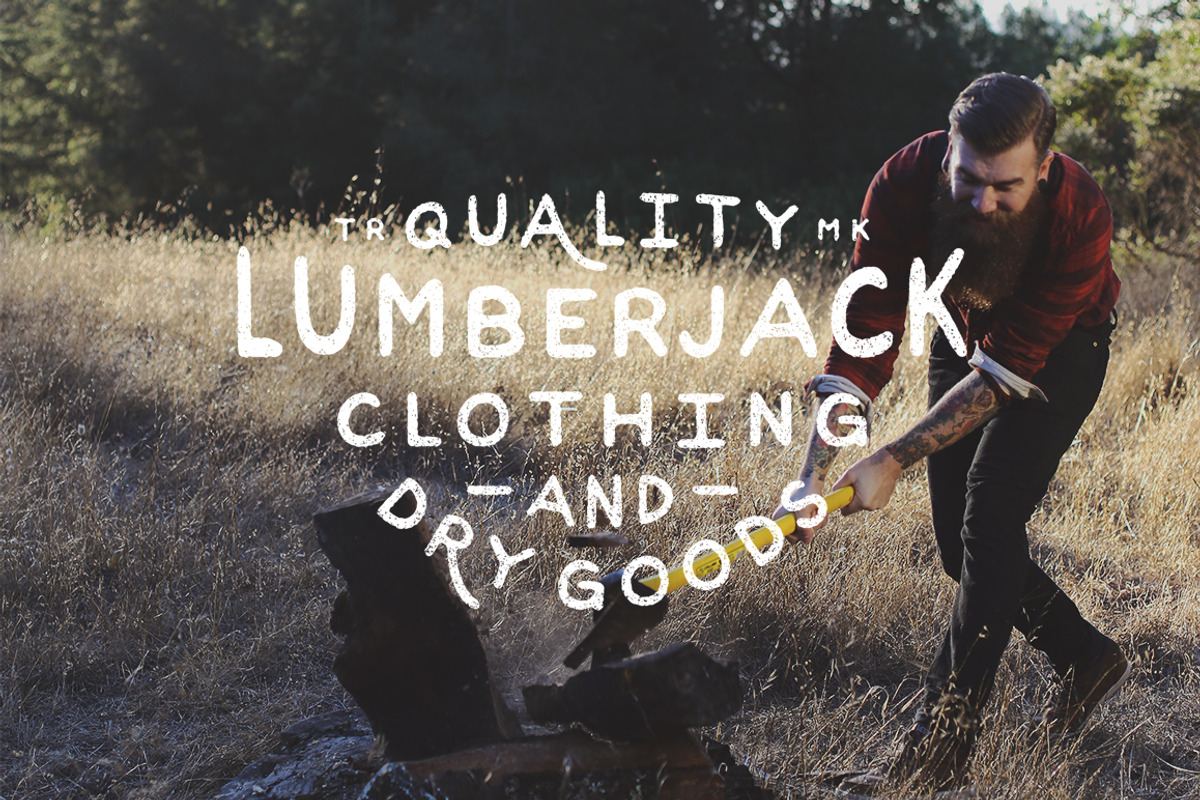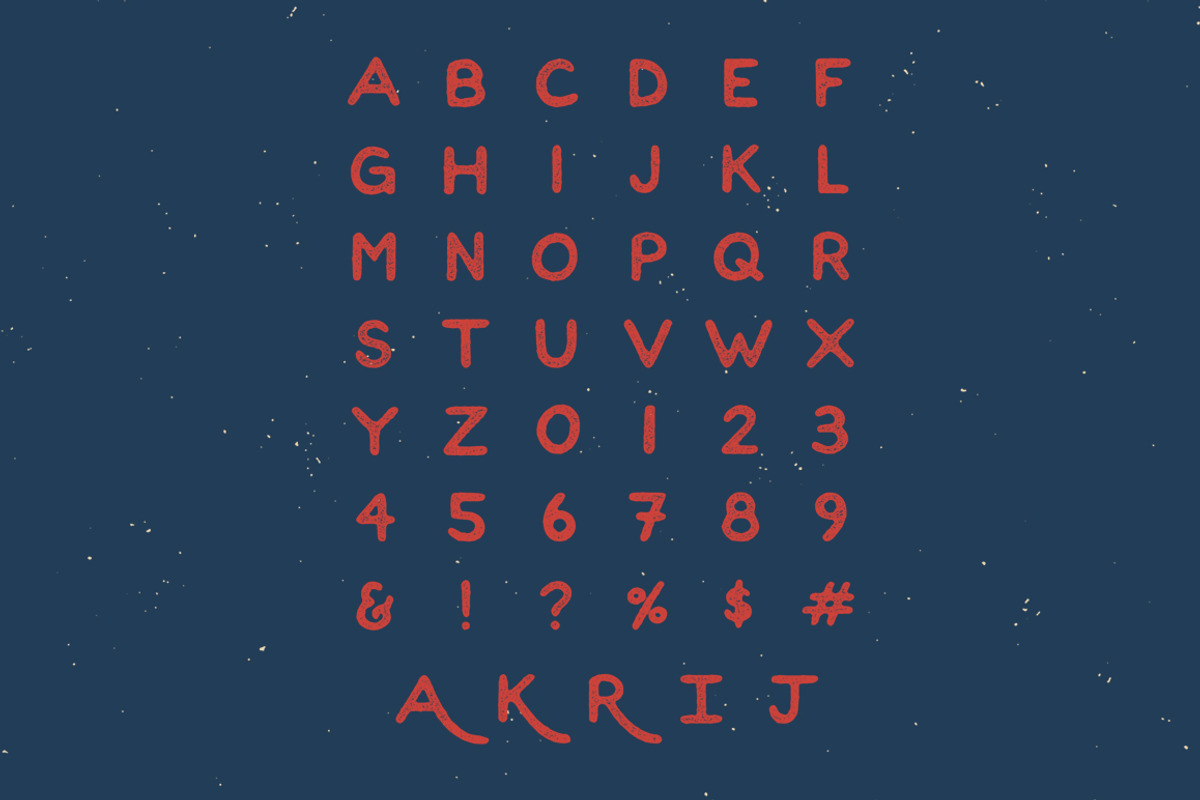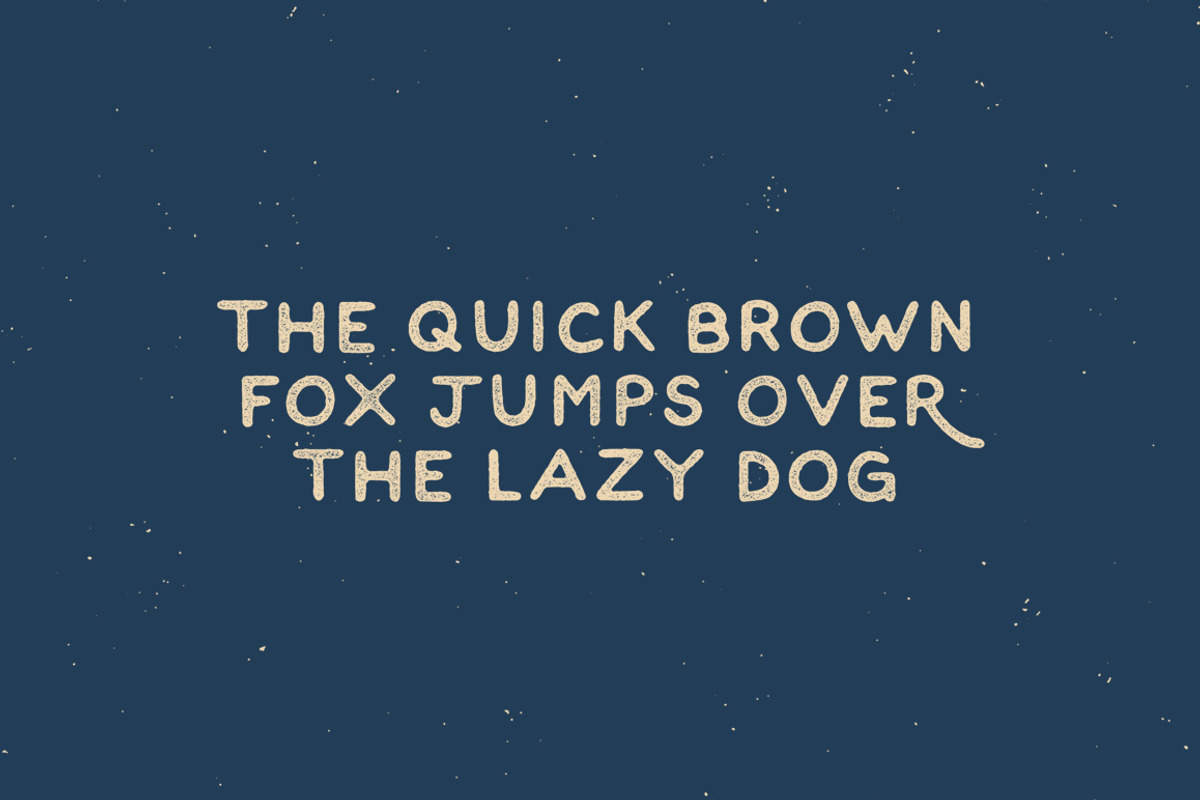
Oak & Ash - Hand Drawn Font
Oak & Ash - Hand Drawn Font by James Lafuente is a font selected for branding, posters, packaging, typography.
- This is a cleaned up version with some alternates as capital letters.
Why Oak & Ash - Hand Drawn Font is worth a look
Oak & Ash - Hand Drawn Font by James Lafuente fits naturally into Branding, posters, packaging, typography.